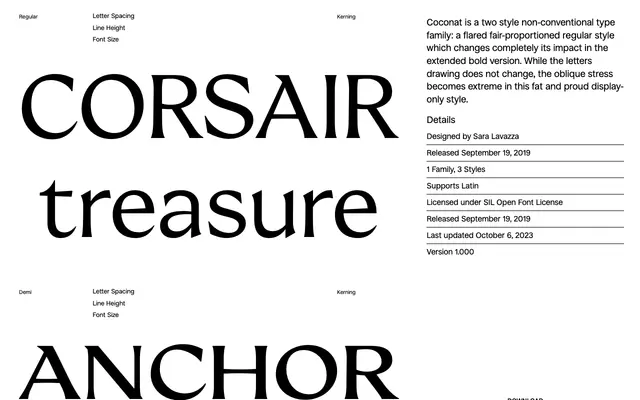
Coconat
Collletttivo · Sara Lavazza · 2019
A three-weight Latin family by Sara Lavazza that shifts from a flared text style in Regular to a fat, oblique-stressed display face in Bold.
Designed by Sara Lavazza and released in 2019 under the SIL Open Font License, Coconat spans three styles whose letterforms stay consistent while the stress angle becomes increasingly extreme. The Regular and Demi are fair-proportioned with flared terminals, making them serviceable at text sizes, whereas the Bold is openly display-only, its wide set and pronounced oblique stress giving it a bold nautical character. The family covers extended Latin including accented characters for a wide range of European languages.
Coconat features flared terminals rather than full bracketed serifs, sitting between a humanist sans and a serif; the extreme oblique stress in the Bold weight pushes it toward display territory.